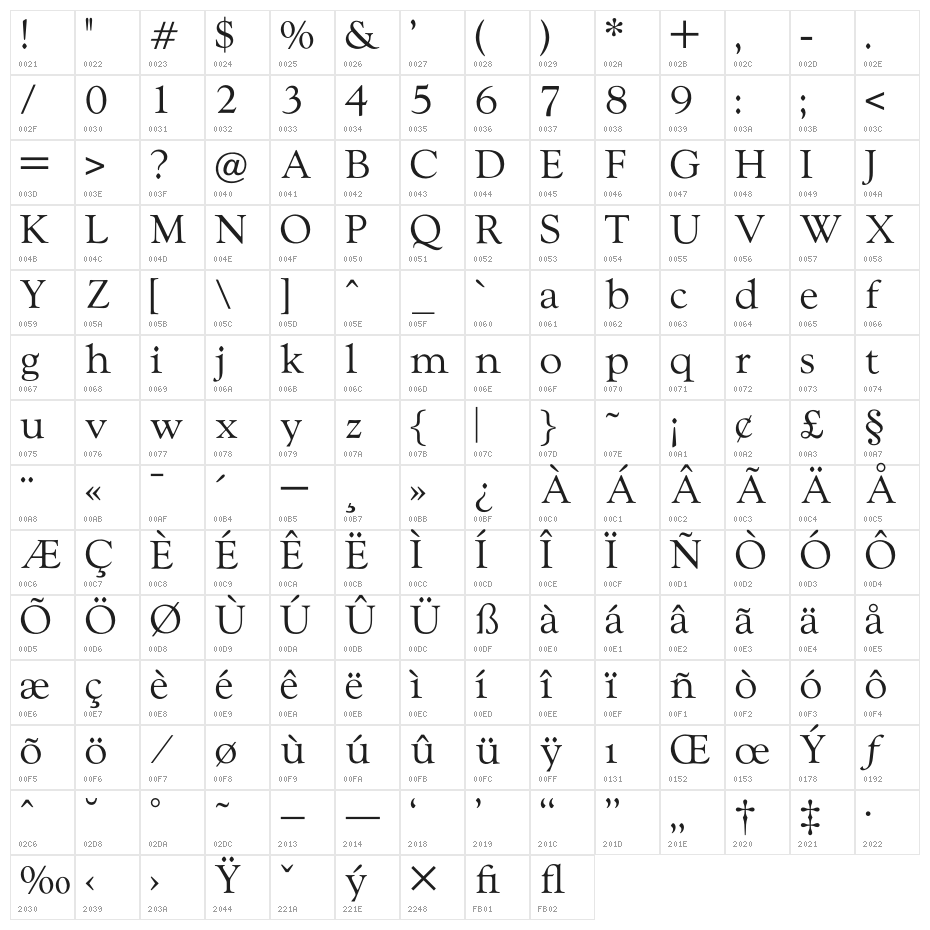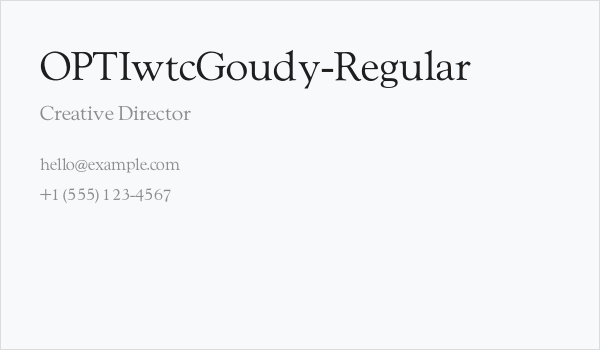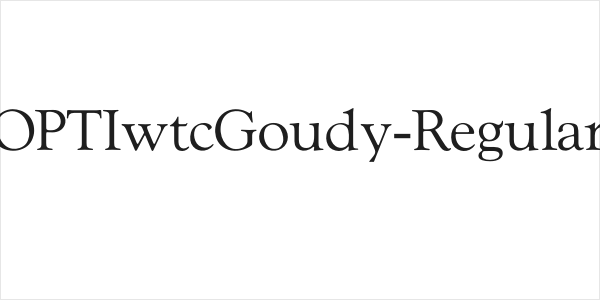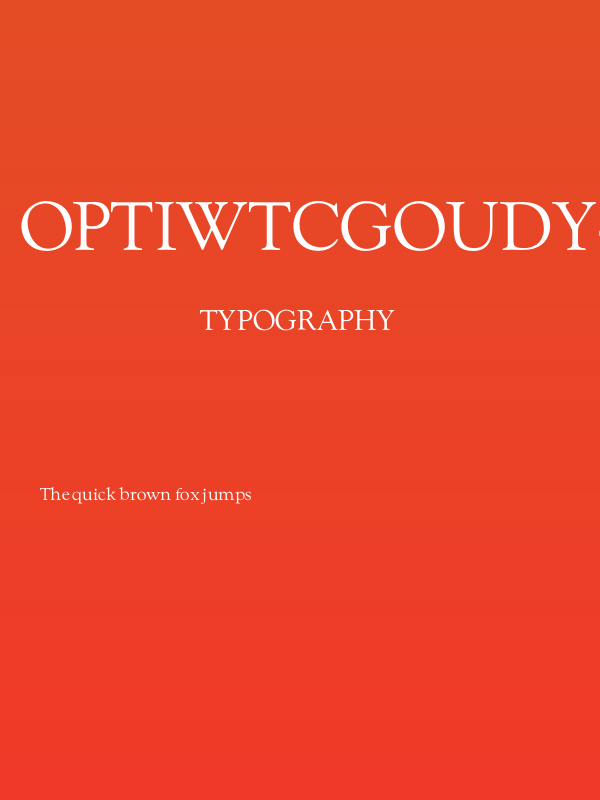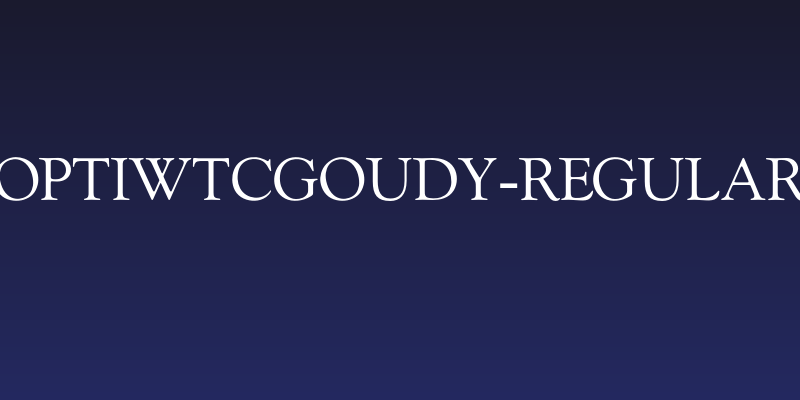
OPTIwtcGoudy-Regular Font
OPTIwtcGoudy-Regular Description
This font features a classic serif style with elegant and refined strokes. The characters exhibit a balanced proportion, with slightly flared serifs that add a touch of sophistication. The uppercase letters are stately and well-defined, while the lowercase letters maintain a harmonious flow. The numerals are clear and distinct, ensuring readability. Special characters are thoughtfully designed, maintaining the overall aesthetic of the font. This typeface is versatile, suitable for both formal and creative applications, offering a timeless appeal.
| Use Case | Body text, Headlines, Editorial design |
| Proposed Projects | Ideal for book typesetting, formal invitations, branding, and editorial design. |